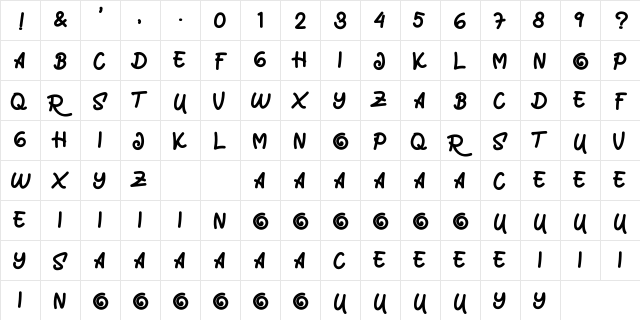
Marrocin Funnies Regular
Design Context for Marrocin Funnies Typeface
Marrocin Funnies trades formality for fun, with bouncy, characterful letterforms that bring warmth and energy to any project.
Great for children's books, toy packaging, family event branding, and casual consumer-facing design.
Font Pairing: Pairs well with a rounded or humanist sans for body copy, maintaining the friendly tone without relying on Marrocin Funnies to carry extended reading.
Pro Tip: Avoid using Marrocin Funnies for long passages of text — it works best for headlines, labels, and short calls to action.